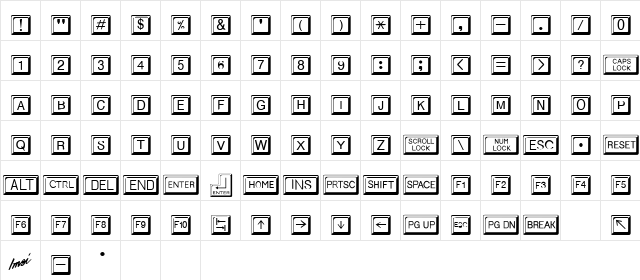
Keycaps Regular Font Preview
Keycaps Regular
Keycaps Regular Font Details
Design Context for Keycaps Typeface
Keycaps is a composed and adaptable typeface that performs quietly and consistently across a wide range of design contexts.